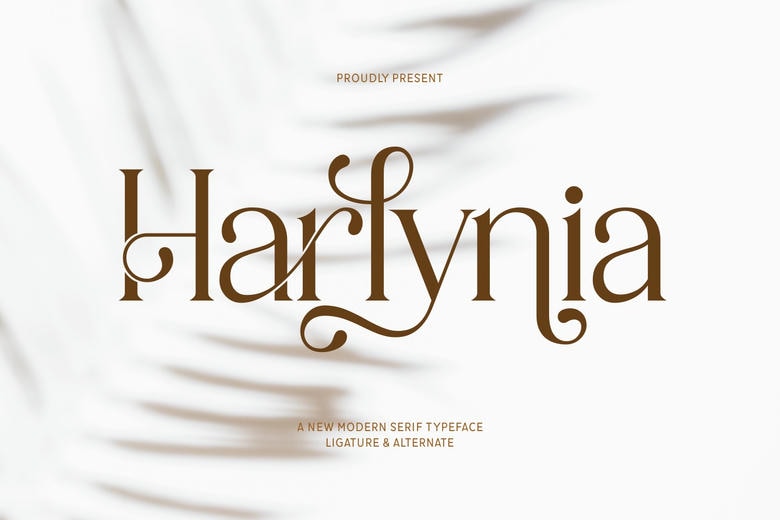
Harlynia Font
Harlynia is a new contemporary serif typeface, which produces a stylish, natural, and elegant boho look. The typeface is ideal in classy logos, branding, travel advertisements, layout magazines, beauty products, product packaging, quotes or just a classy text overlay on any background image.
Harlynia Serif Font